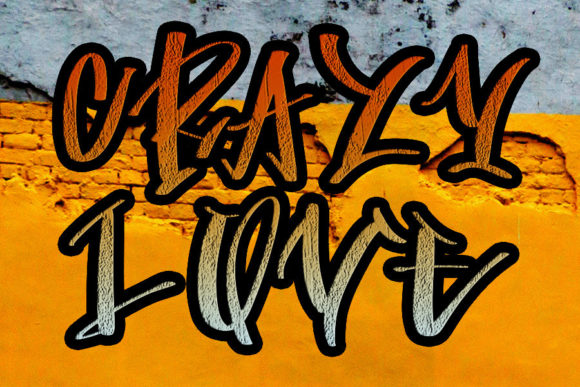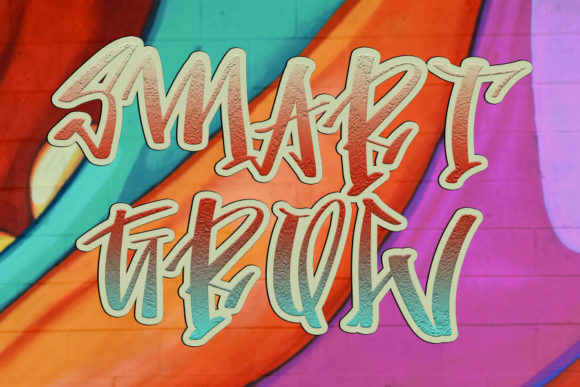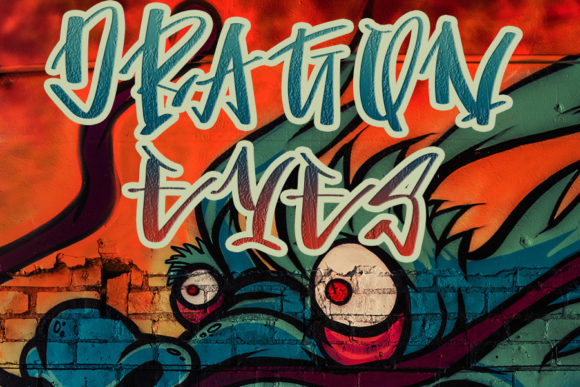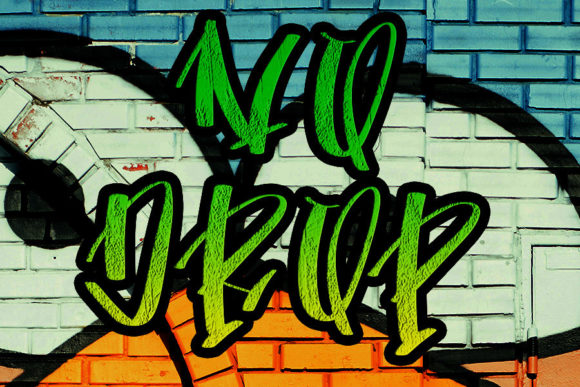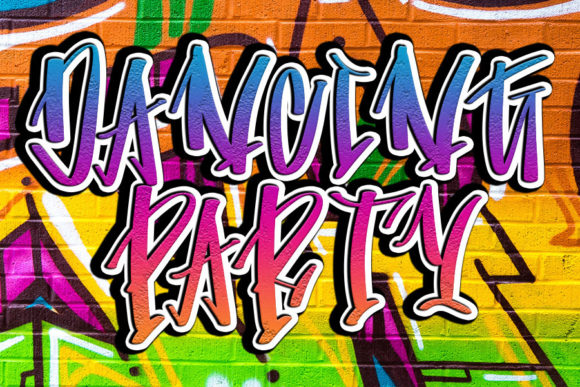
The Ultimate Dancing Party Font Review: Is This Quirky Display Font Right for You?
I’ll never forget the time I was working on a project for a trendy boutique hotel, and I just couldn’t find the right font to capture their fun, urban vibe. The client wanted something bold, quirky, and eye-catching – and I was determined to deliver. That’s when I stumbled upon the Dancing Party Font. With its urban-looking characters and cool graffiti flair, I knew I had found the perfect fit. In this article, I’ll share my honest review of this display font, along with some practical tips on how to use it and where it shines.
What I Love About Dancing Party Font
- ✨ Bold and quirky: This font is not for the faint of heart. It’s perfect for projects that need to stand out from the crowd.
- ✅ Flexible: Whether you’re designing a poster, a logo, or a social media graphic, Dancing Party Font adapts seamlessly to different contexts.
- 💥 Graffiti flair: The font’s urban, edgy vibe is perfect for projects that require a bit of attitude.
While Dancing Party Font is an amazing display font, it’s not without its quirks. Here are a few things to keep in mind:
- 🤔 Legibility: At smaller font sizes, some characters can be a bit tricky to read. Make sure to test it out at different sizes to ensure it works for your project.
- ⚠️ Overuse: As with any bold font, it’s easy to overuse Dancing Party Font. Use it sparingly to make a bigger impact.
One of the best things about Dancing Party Font is its OpenType features and glyphs. Here are a few tips on how to make the most of them:
- 💡 Stylistic alternates: Switch between different font styles to add some visual interest.
- 🔍 Glyphs: Experiment with different glyphs to add some extra flair to your text.
The Backstory Behind Dancing Party Font
Dancing Party Font was designed by a team of creatives who wanted to capture the energy and excitement of urban street culture. Inspired by the vibrant colors and eclectic styles of city streets, this font is perfect for projects that require a bit of attitude and flair.
Q: Is Dancing Party Font suitable for body text?
A: While Dancing Party Font is a beautiful display font, it’s not recommended for body text. It’s best used for headlines, titles, or other display text.